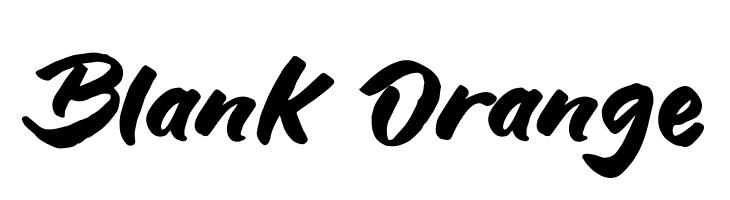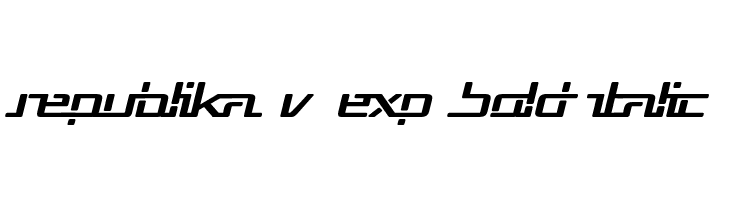
( Fonts by www.typodermicfonts.com - Ray Larabie )
A bold, angular font with a futuristic and dynamic style.
A lively, cursive script font with smooth, flowing strokes and elegant character connections.
( www.junkohanhero.com )
A bold, flame-inspired font with dynamic, jagged edges.
A playful, hand-drawn font with uneven strokes and a whimsical style.
( Sam Kasten - thelifeandtimesofaflexitarian.tumblr.com/ )
A playful, handwritten font with a casual and friendly style.
A bold, expressive script font with a handwritten, cursive style.
( Fonts by Cannot Into Space Fonts )
A playful, handwritten font with rounded, irregular letterforms.
A bold, expanded, and italic font with a futuristic, angular design.